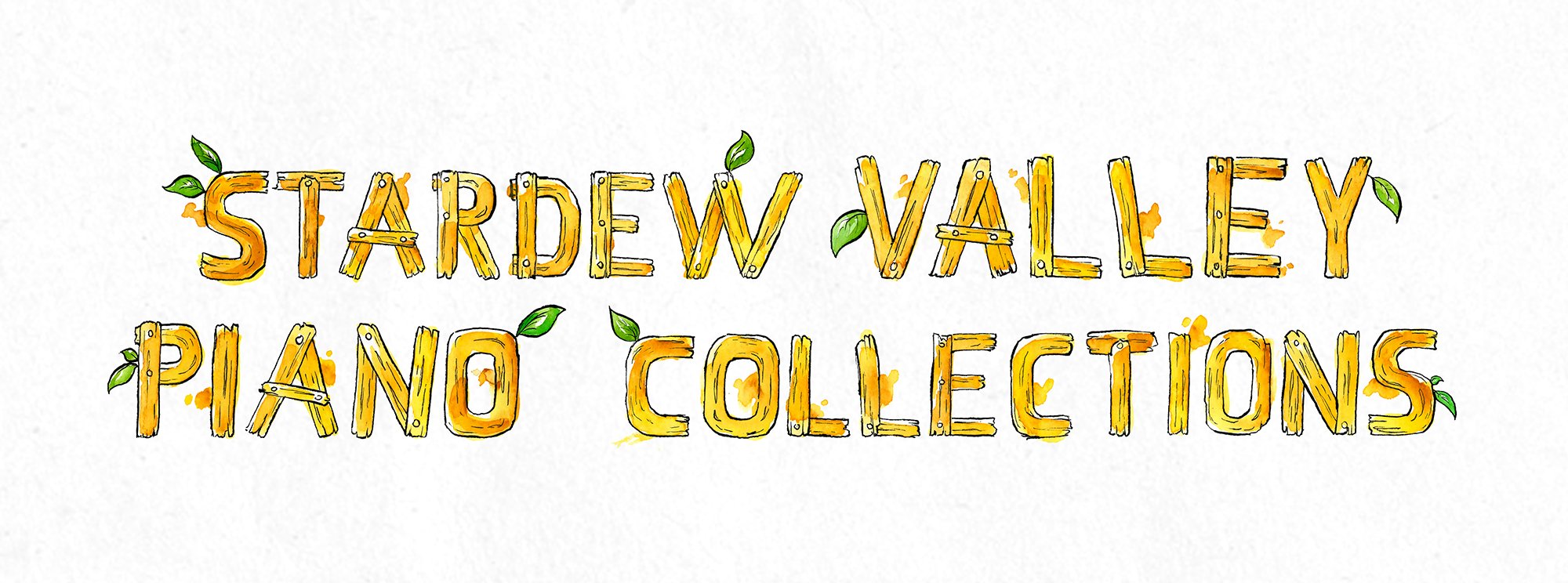
Stardew valley font generator. Although we have the largest database of fonts, the search for a font from an image gets mixed results like the image above. About the font stardew valley regular. Concernedape is the creator and developer of the game stardew valley, and this font is solely an expansion of the title screen font.
Anyone got/willing to make the complete alphabet in the font style of the sv logo? Thousands of designers (famous or not) use the image font detection system to find a font or similar free fonts from an image. Feeding my obsession with stardew valley lettering.
In this wonderful article, we will be focusing upon the places where this special writing style can be easily used. Stardew valley all caps is free for personal use only. 3 votes you voted ?
The font family is stardew valley. Stardew valley à € by eliot truelove. Stardew valley à € di eliot truelove.
Stardew valley regular.ttf stardew valley all caps.ttf. Kdau → stardew valley → scroll generator. Stardew valley creator eric barone finally dropped a few more details about his upcoming game in the post stardew cup stream.
Use the “save scroll (s)” button to download each scroll as a png image. Stardew valley font editing guide learn how to extend stardew valley’s font files for localisation support! About the font stardew valley all caps.
Added stardew valley merchandise shop banner. I need it for important reasons but digital art is not a skill i possess Due to its popularity, the requirement of this game font is on the peak.